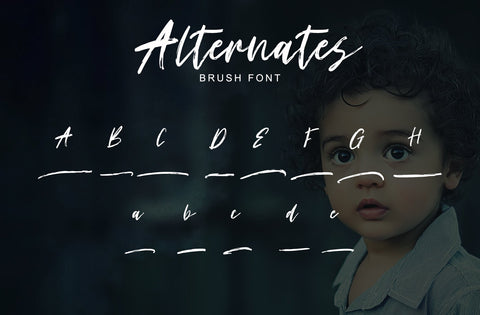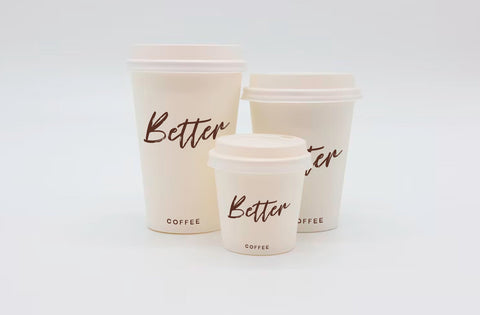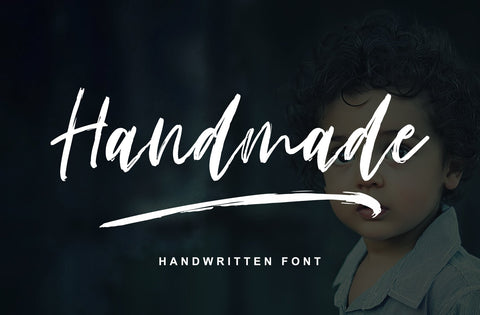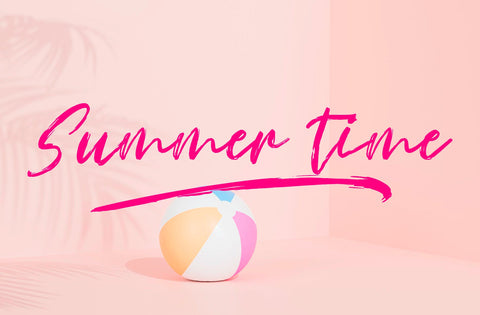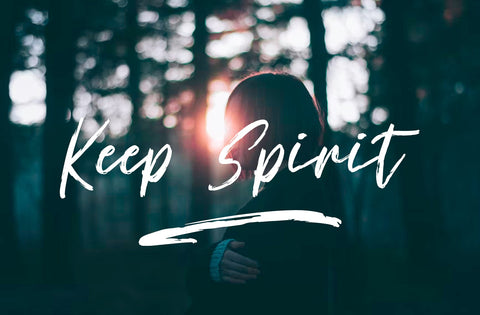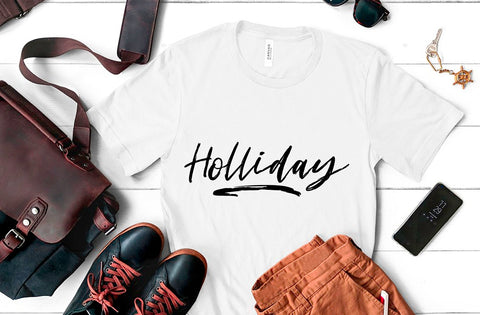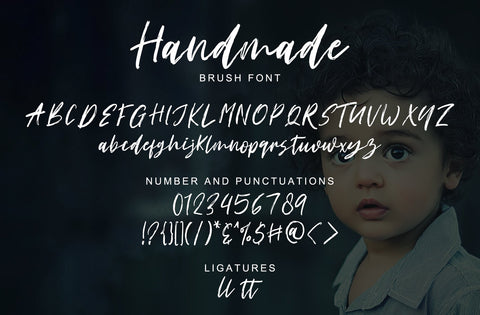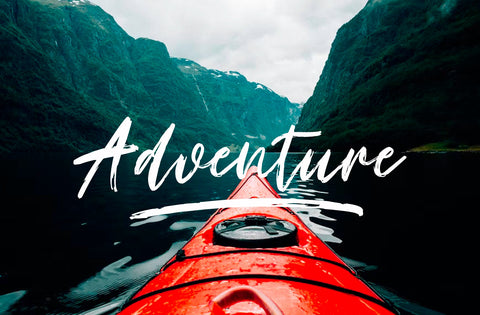
Handmade Brush Font
Handmade is a relaxed and trendy script font. It is suitable for any projects such as: logos, branding projects, label, photography, watermark, special events, and all your other lovely projects that need a beautiful script taste.